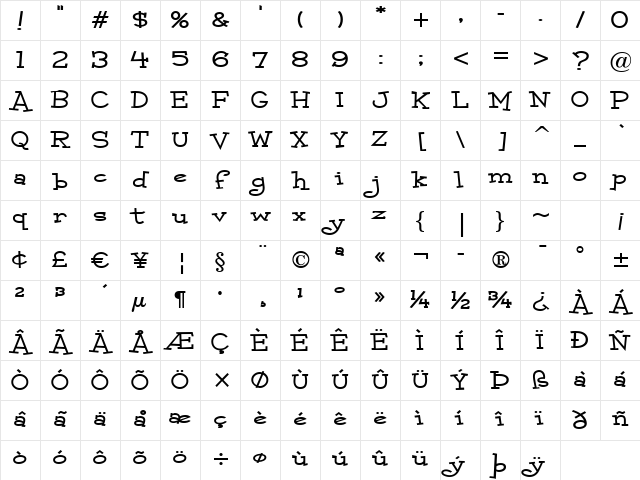
Malihini Cuban BTN Exp Bold
Complete Malihini Cuban BTN Exp Bold glyph index. Displaying only characters natively supported by Malihini Cuban BTN Exp Bold font.
Design Context for Malihini Cuban BTN Exp
Malihini Cuban BTN Exp is a composed and adaptable typeface that performs quietly and consistently across a wide range of design contexts. Its bold stroke weight gives it real presence on the page.